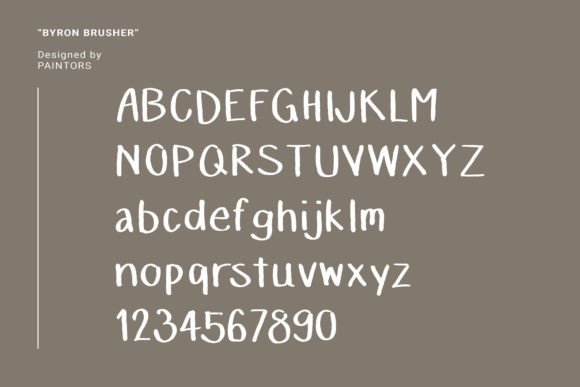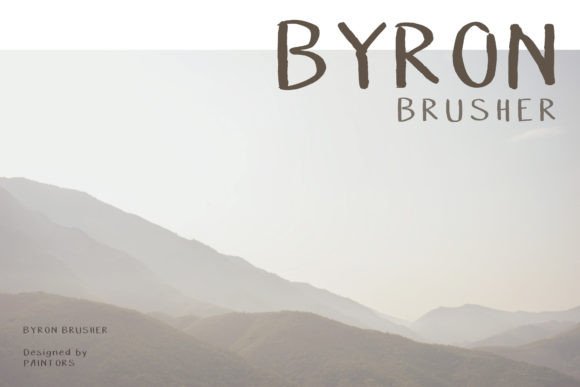
The Elegant Byron Brusher Font: A Designer’s New Best Friend
I still remember the design project that led me to discover the beautiful Byron Brusher font. I was working on a wedding invitation suite, and my client had a very specific vision: elegant, handwritten, and warm. I had spent hours scouring font websites, but nothing seemed quite right. That was when I stumbled upon Byron Brusher, and it was love at first sight! ✨
An Honest Review of Byron Brusher
So, what makes Byron Brusher so special? Let’s dive into the good stuff and a few quirks I’ve noticed.
- ✨ Elegant, handmade calligraphy style that adds a touch of sophistication to any design
- ✅ Gentle curves and soft lines that create a welcoming tone, perfect for heartfelt messages
- 💕 Highly legible, even at smaller font sizes
- 🎨 Versatile and works well for a variety of design projects, from invitations to branding
- 🤔 Limited availability of stylistic alternates, which might limit its use in certain design contexts
- ⚠️ Not ideal for body text or long paragraphs, as it’s best suited for display purposes
A Practical Guide to Using Byron Brusher
Now that we’ve covered the basics, let’s get into the nitty-gritty of using Byron Brusher in your designs.
The Story Behind Byron Brusher
Byron Brusher was designed with love and care by a talented type designer. The font’s elegant, handmade calligraphy style is inspired by traditional lettering techniques. The designer aimed to create a font that would evoke a sense of warmth and sophistication, making it perfect for special occasions and personal projects.
| Font Name | Byron Brusher Font |
| Author | PAINTORS |
Q: What type of projects is Byron Brusher best suited for?
A: Byron Brusher is ideal for display purposes, such as titles, headings, and short paragraphs. It’s perfect for wedding invitations, branding, packaging, and other creative projects where you want to make a statement.